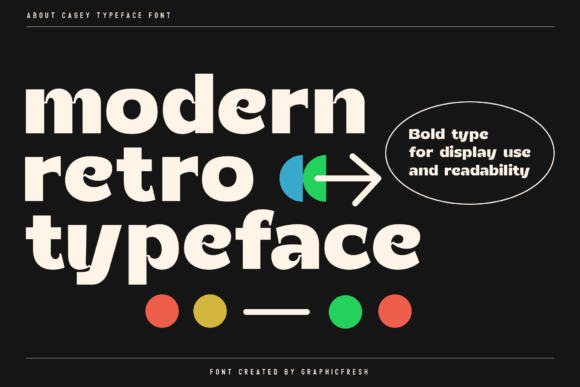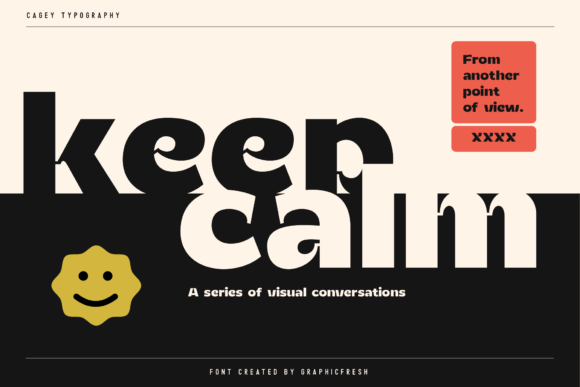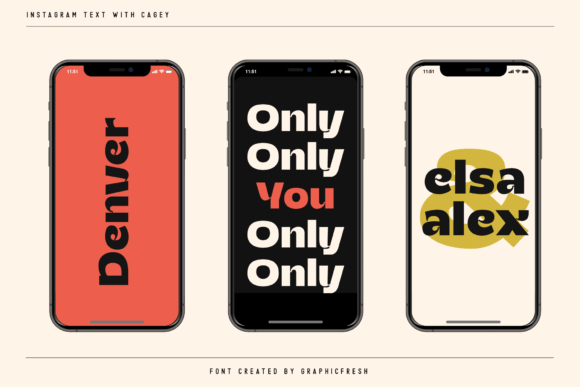
Introduction to Cagey Font
Cagey – The Bold Retro Sans Serif Font.
This font is synonymous with the 70s or 80s style design visuals, it looks bold and strong It is also reminiscent of the past.